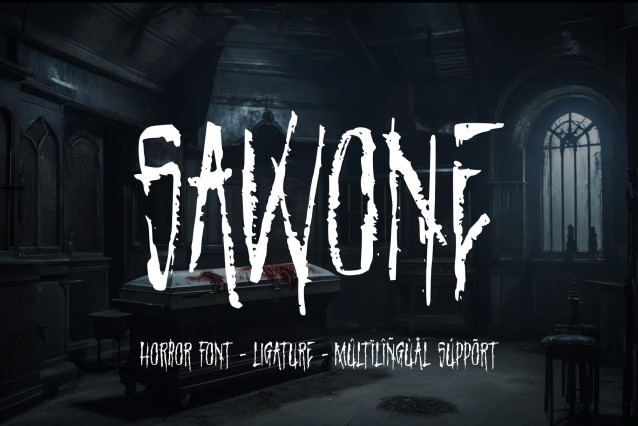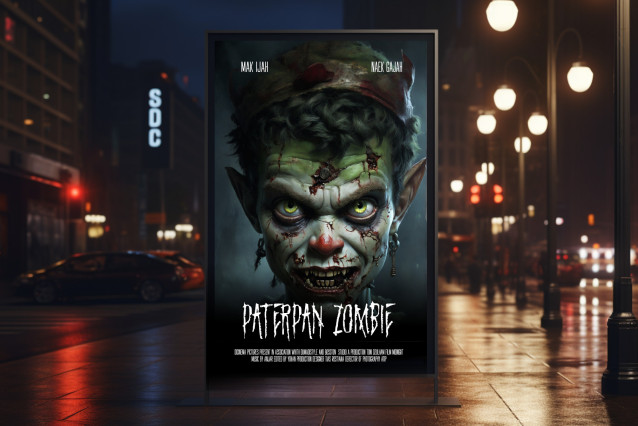
Sawone Horror Font
Sawone Horror Font, meticulously crafted with the Procreate Brush by the talented Toni Dzulham, embodies an eerie and unsettling essence, making it the perfect choice for horror-themed designs. Specifically tailored for horror film titles, spine-chilling content creators, and ominous posters, Sawone captures the essence of fear with its hauntingly unique characters. The intricately designed letterforms evoke a sense of dread and suspense, enhancing the overall impact of any horror-related project. Dive into the macabre with Sawone, as it lends an atmospheric touch to your designs, ensuring an unforgettable and chilling experience for your audience.